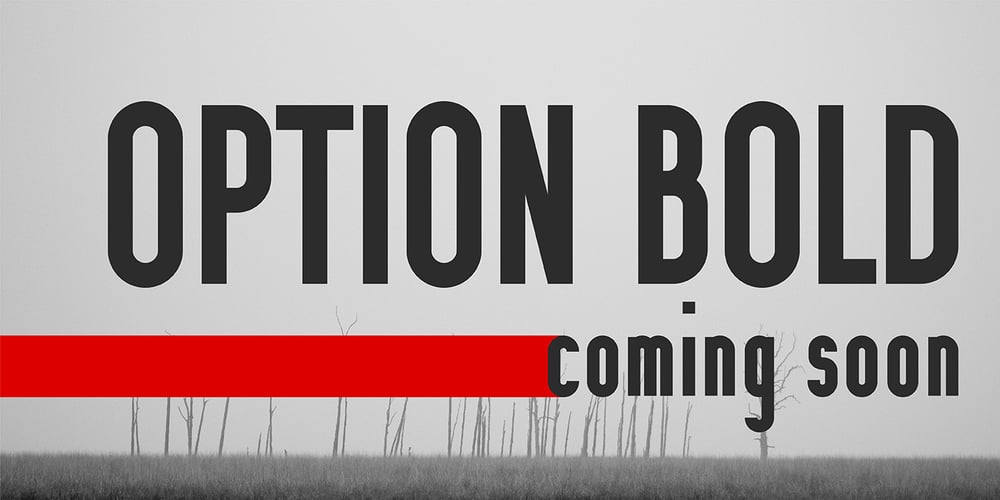
Option Font Family was designed by Vladimir Likh and published by Vladimir Likh. Option contains 2 styles and family package options. Option is a modern condensed sans serif. Inspired by geometric architectural fonts. But despite the geometric construction every single letter was build based on optical evaluation. This approach makes Option more organic and lively in a text line. Option was created for wide spaces. Condensed and thin, but extremely sweeping vertically font makes your massage elegance and strong. The font functions great in many sizes and surroundings. The family comes in one weights plus italics. Creating of bold weight is underway. Options supports Cyrillic as well.